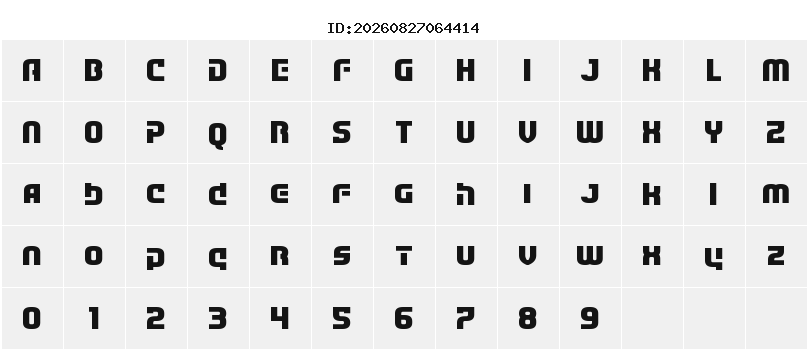
• Font Name: 53 Dollars And 92 Cents
• Designer: AM
About 53 Dollars And 92 Cents.ttf
53 Dollars And 92 Cents.ttf is a modern, elegant sans-serif font designed for ultimate readability and visual harmony. Perfect for branding, headlines, web design, and print materials.